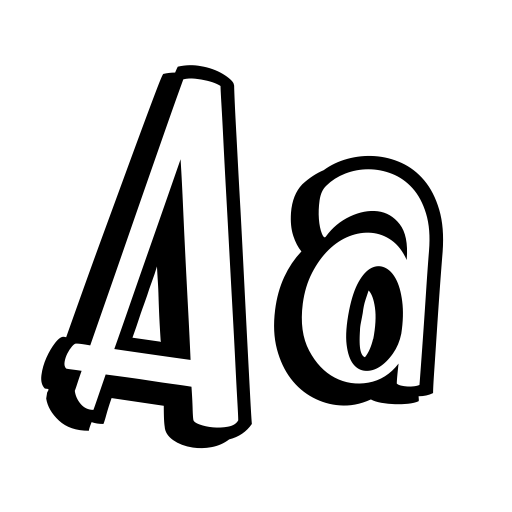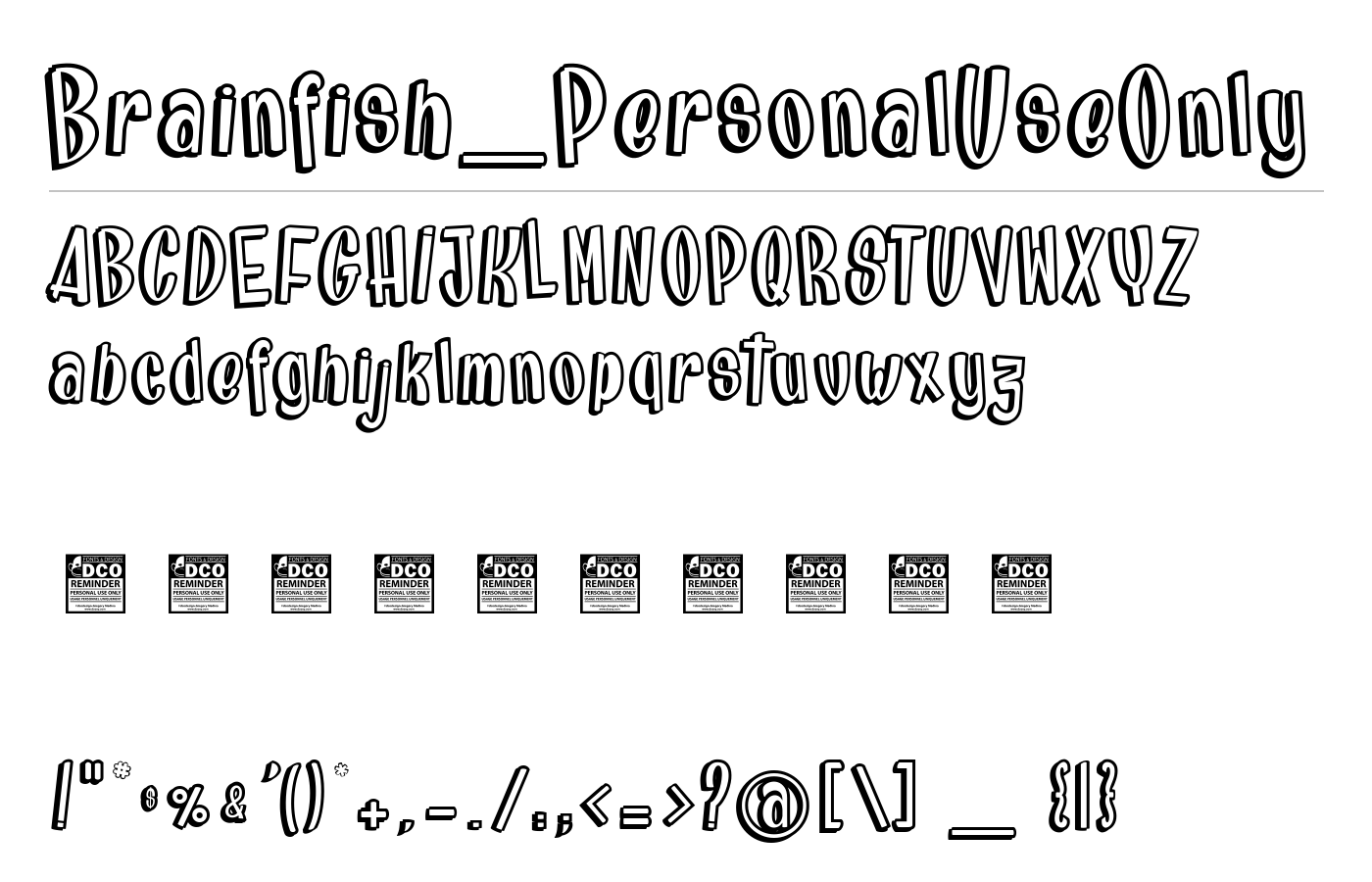
Brainfish_PersonalUseOnly is a playful and quirky sans serif font with a hand-drawn feel, featuring tall, slightly condensed letterforms and uneven, bold outlines that give it a lively, cartoon-like appearance. Its mix of uppercase and lowercase characters with unique details, such as exaggerated curves and angled strokes, makes it ideal for fun, informal designs like posters, children’s books, or casual branding that needs a friendly, energetic vibe. This font shines in display use where personality and approachability are key.
Brainfish_PersonalUseOnly Font
About Brainfish_PersonalUseOnly Font
| Font family | Brainfish_PersonalUseOnly Font |